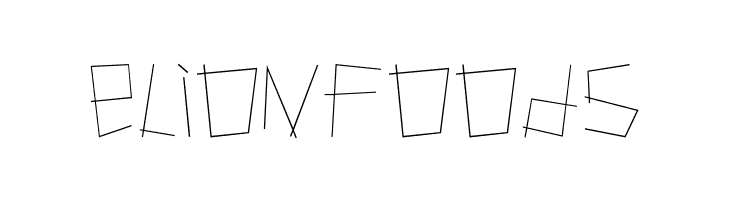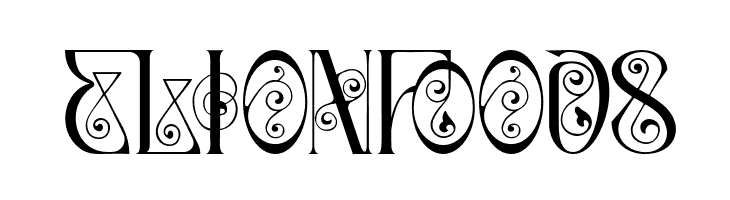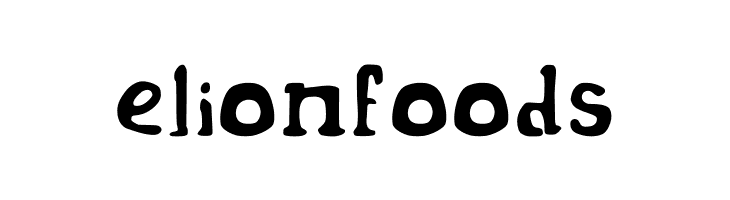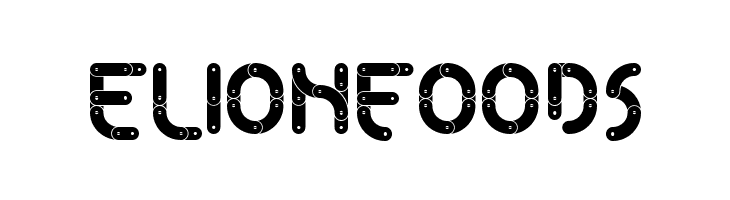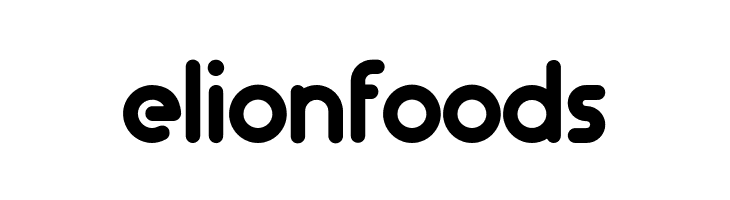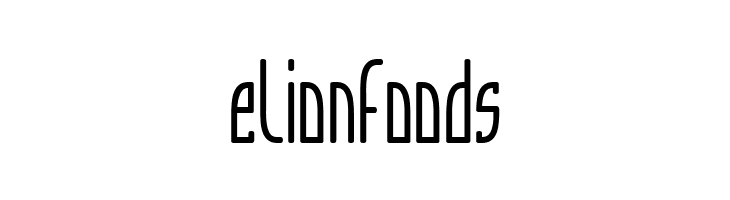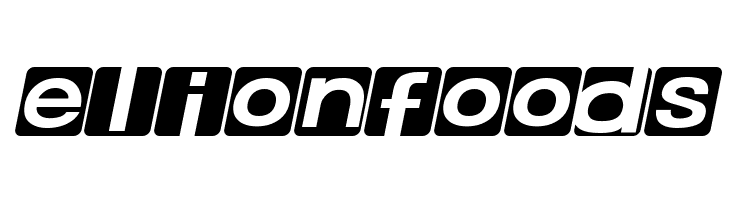
A bold, condensed font with a 3D shadow effect, perfect for impactful designs.
A bold, condensed, italic font with a decorative outline and modern appeal.
A bold, italic font with strong outlines and a dynamic, modern style.
A bold, decorative font with a vintage, three-dimensional style.
A bold, staggered italic font with a three-dimensional effect.
A bold, decorative font with a staggered, shadowed effect for a 3D appearance.
Hand-drawn icon font with playful, detailed illustrations.
A playful, handwritten font with tall, narrow letters and a quirky style.
( Fonts by Anke Arnold - www.anke-art.de )
A distressed, vintage-style serif font with a rough, weathered texture.
( Fonts by Mario Arturo - www.marioarturo.com )
An elegant and ornate script font with intricate loops and swirls.
( Copyright (c) 2011, Constanza Artigas Preller (artigasconstanza@gmail.com) )
A classic serif font with a modern touch, offering elegance and readability.
( Copyright (c) 2011, Constanza Artigas Preller (artigasconstanza@gmail.com) )
A bold serif font with strong, thick strokes and a classic appearance.
A modern, geometric font with sharp angles and smooth curves, perfect for contemporary designs.
( Michael Bulgrin - bulgrin.de )
A bold, expressive font with brush-like strokes and irregular forms.
A dripping, liquid-like font ideal for dramatic and eerie designs.
A bold decorative icon font with food and dining motifs.
( Fonts by Docallisme HAS )
A bold, graffiti-style font with a dynamic, urban aesthetic.
( Janna - janna-art.wz.cz/ )
A playful, casual handwritten font with a whimsical style.
A bold, playful script font with a handwritten style.
A bold, jagged font with a rough, dynamic texture.
( Artspace Design - Mas Mujib - www.behance.net/artspacedec21c )
A geometric and modern typeface with clean lines and angular shapes.
( Fonts by Jason Arthur - JibbaJabba Fonts - www.myspace.com/jasonarthurloaded )
A playful, bold font with dynamic, hand-drawn letterforms.
( Fonts by Jason Arthur - JibbaJabba Fonts - www.myspace.com/jasonarthurloaded )
A bold, playful font with a dynamic and energetic style.
( Fonts by Jason Arthur - JibbaJabba Fonts - www.myspace.com/jasonarthurloaded )
A bold, italic font with a dynamic and modern style.
( Fonts by Jordan Debney )
A bold, flame-themed font ideal for dramatic and thematic designs.
( Fonts by Anke Arnold - www.anke-art.de )
A playful, popsicle-themed decorative font with a hand-drawn, cartoonish style.
A playful, handwritten font with a casual and flowing style.
( Fonts by Jason Arthur - JibbaJabba Fonts - www.myspace.com/jasonarthurloaded )
A playful, handwritten font with bold, rounded strokes and a lively, informal style.
( Fonts by Jason Arthur - JibbaJabba Fonts - www.myspace.com/jasonarthurloaded )
A bold, playful handwritten font with a dynamic and friendly style.
( Fonts by Jason Arthur - JibbaJabba Fonts - www.myspace.com/jasonarthurloaded )
A bold, italicized handwritten font with a playful and dynamic style.
( Fonts by Jason Arthur - JibbaJabba Fonts - www.myspace.com/jasonarthurloaded )
A bold, italicized handwritten font with a dynamic and casual style.
( Anke-Art - www.anke-art.de/ )
A bold, festive font with Santa illustrations on each letter.